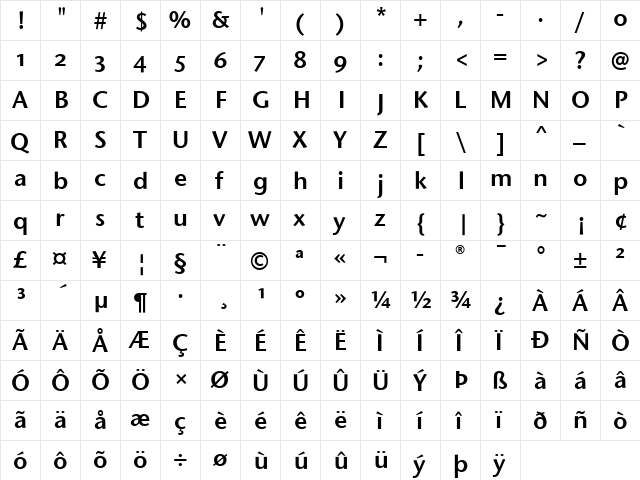
StoneSansOSITC Regular
Design Context for StoneSansOSITC Typeface
StoneSansOSITC is a composed and adaptable typeface that performs quietly and consistently across a wide range of design contexts.